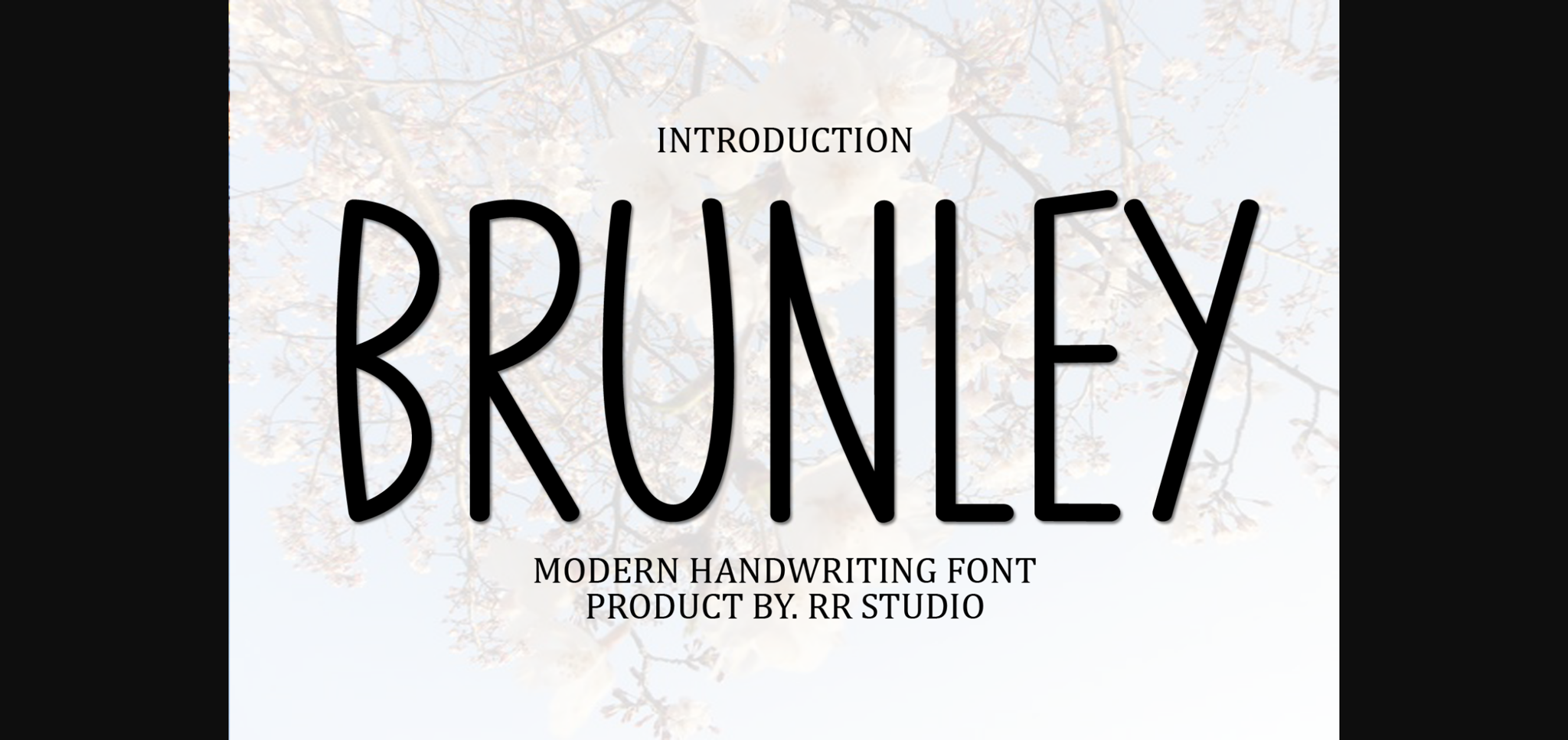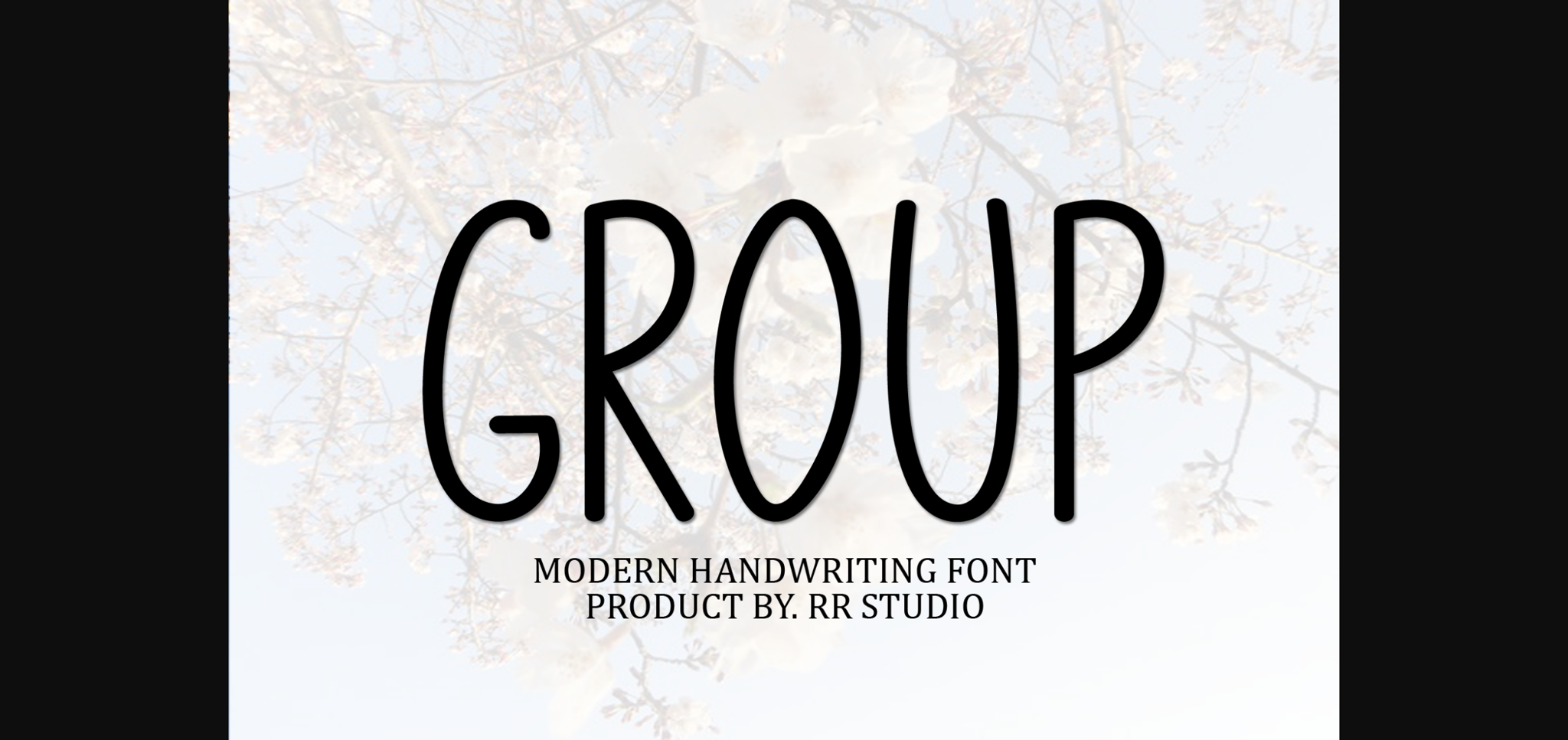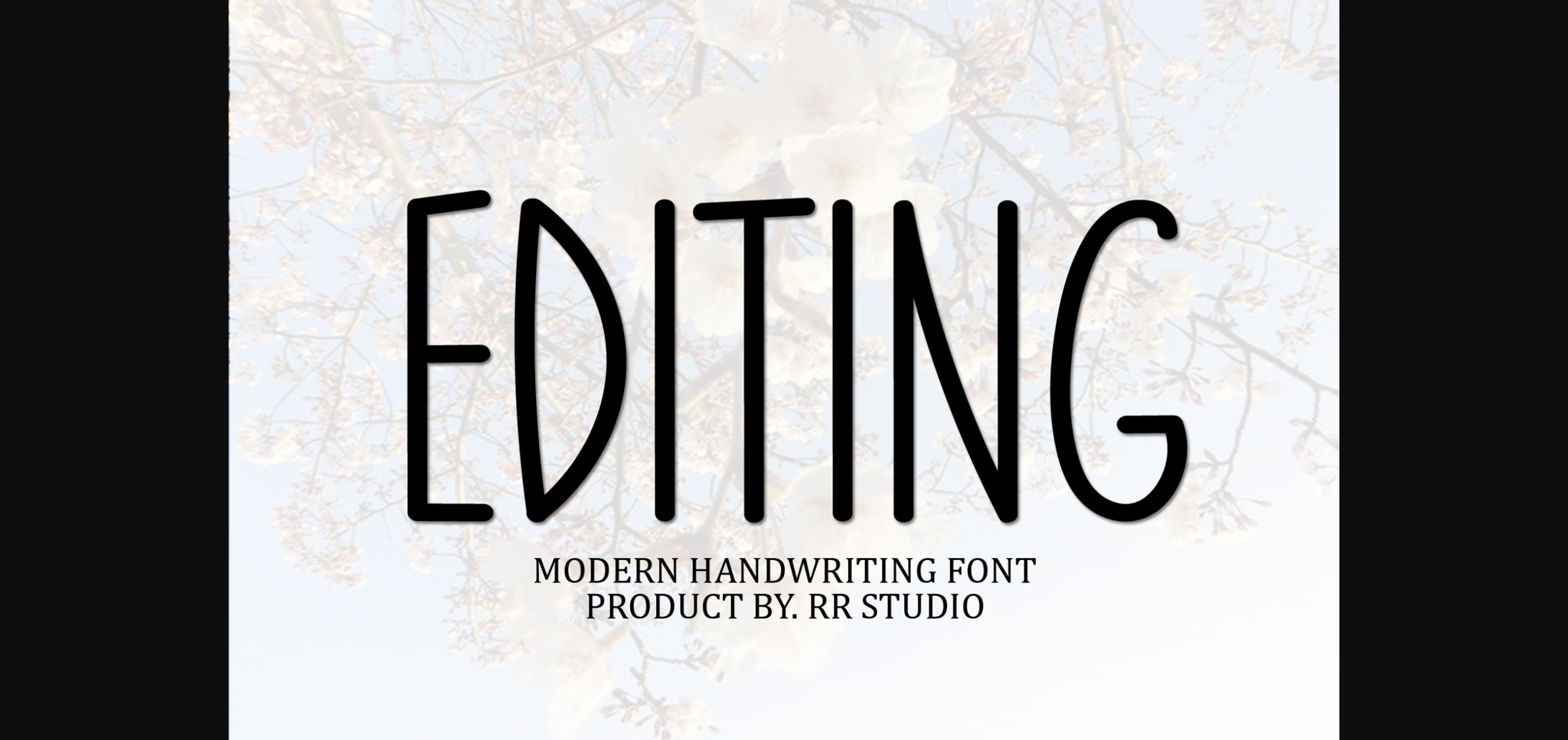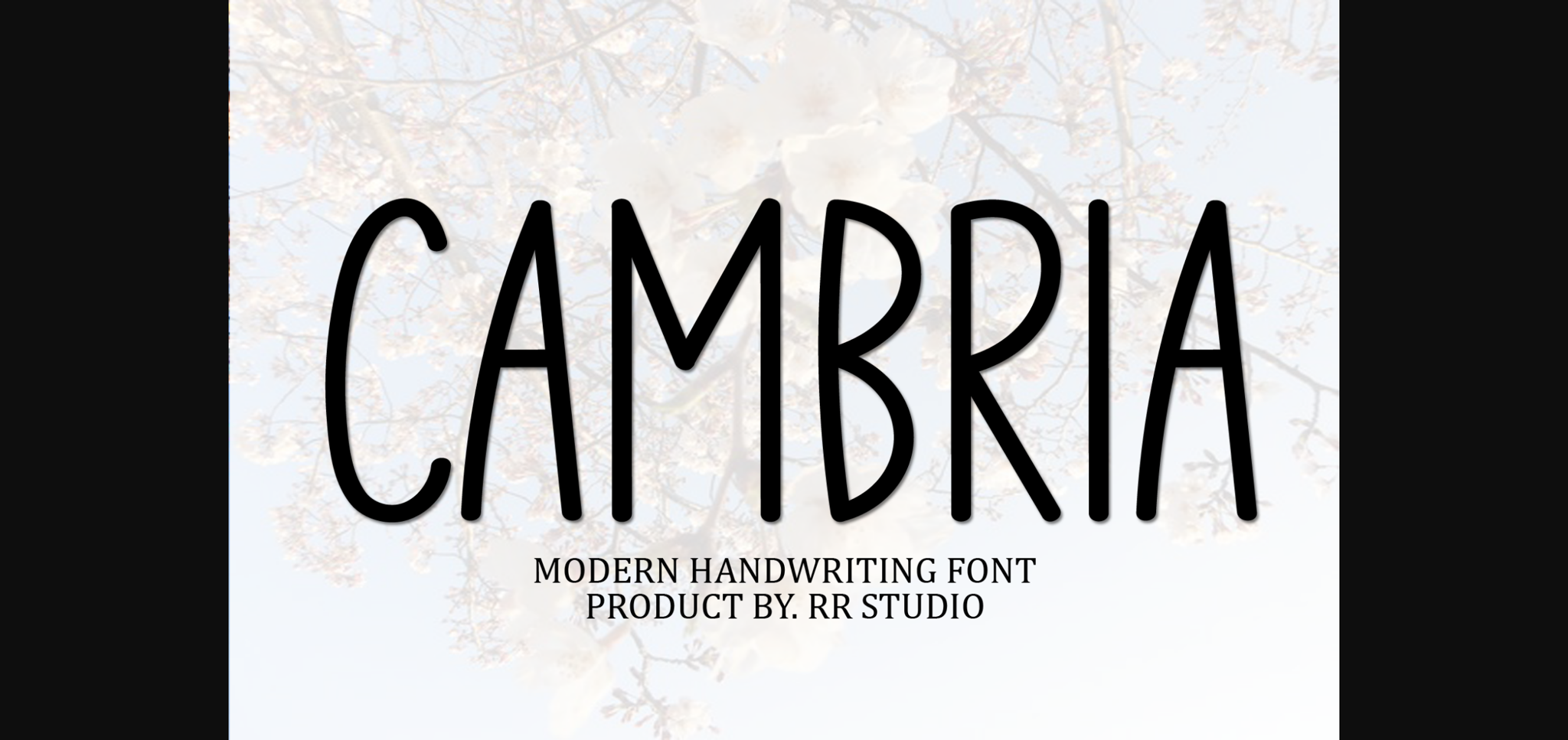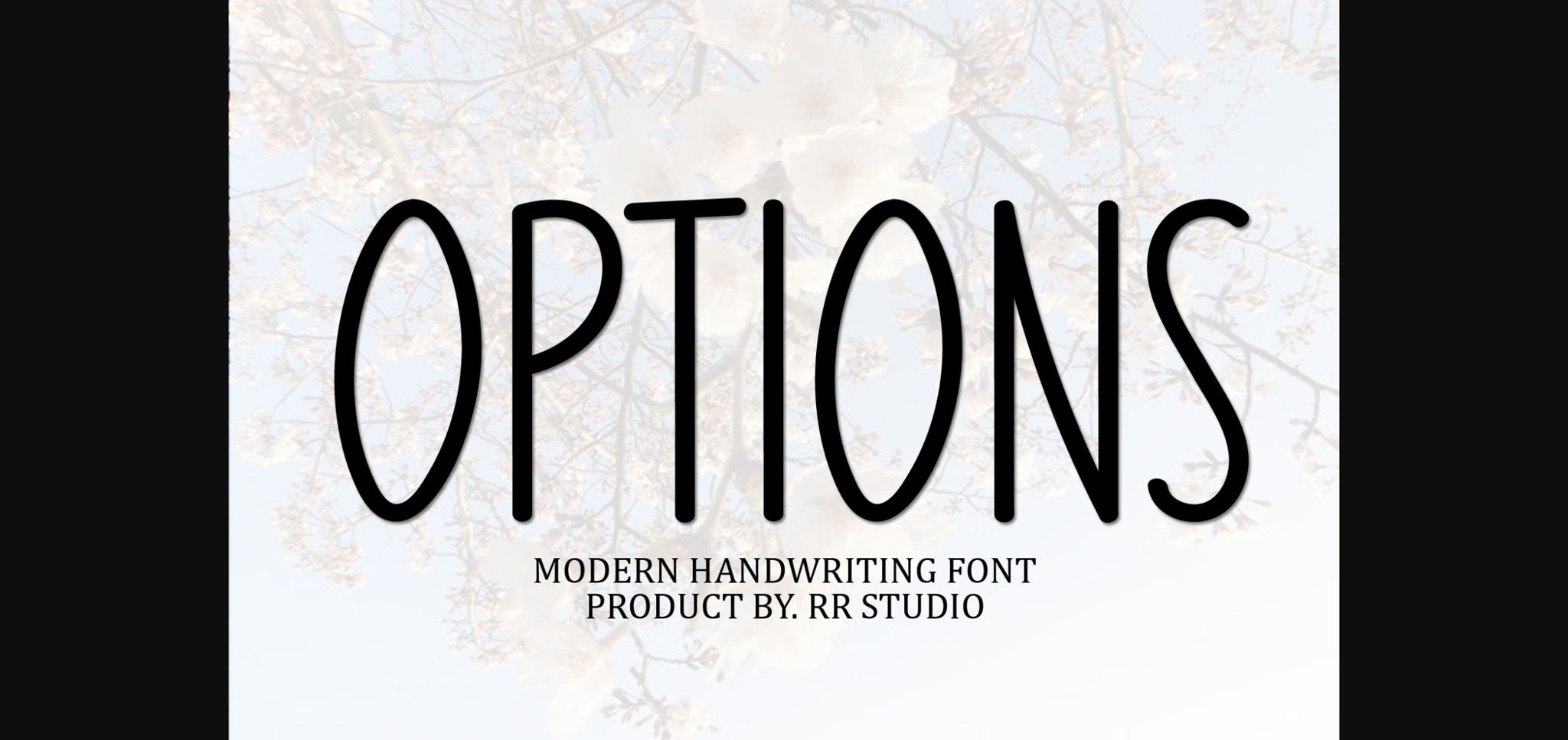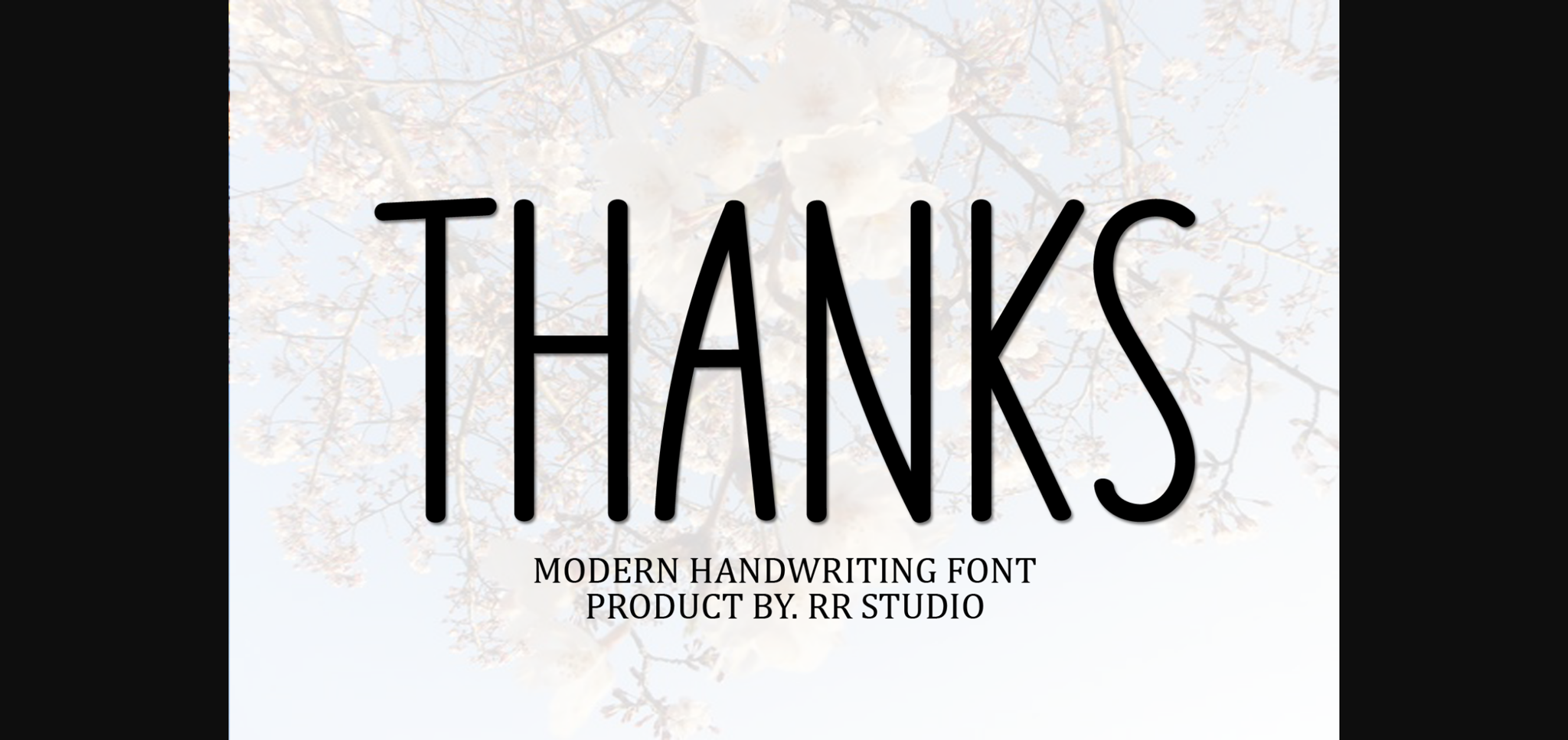
Brunley Font
About Brunley Font
Brunley is a friendly, thin sans-serif font that effortlessly merges warmth with sophistication. Its slender, well-crafted letterforms convey a modern elegance, while maintaining approachability. Ideal for projects requiring a delicate yet friendly touch, Brunley adds a subtle charm to your creative ventures.